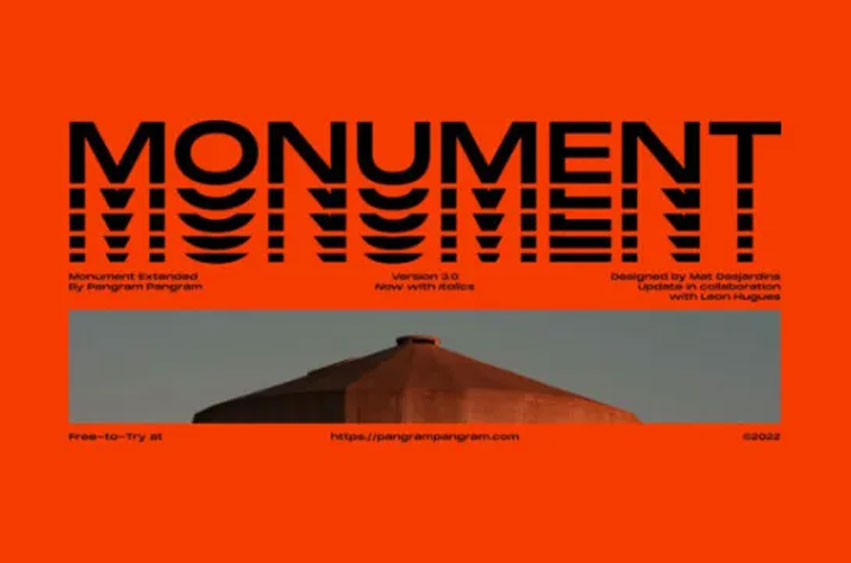
PP Monument Font
PP Monument Font Extended is a powerful quality extended typeface with great versatility.
This extended font can be used for bold editorial statements, graphic heavy prints or just as a simple logo. This new type will definitely make your designs stand out and unique.